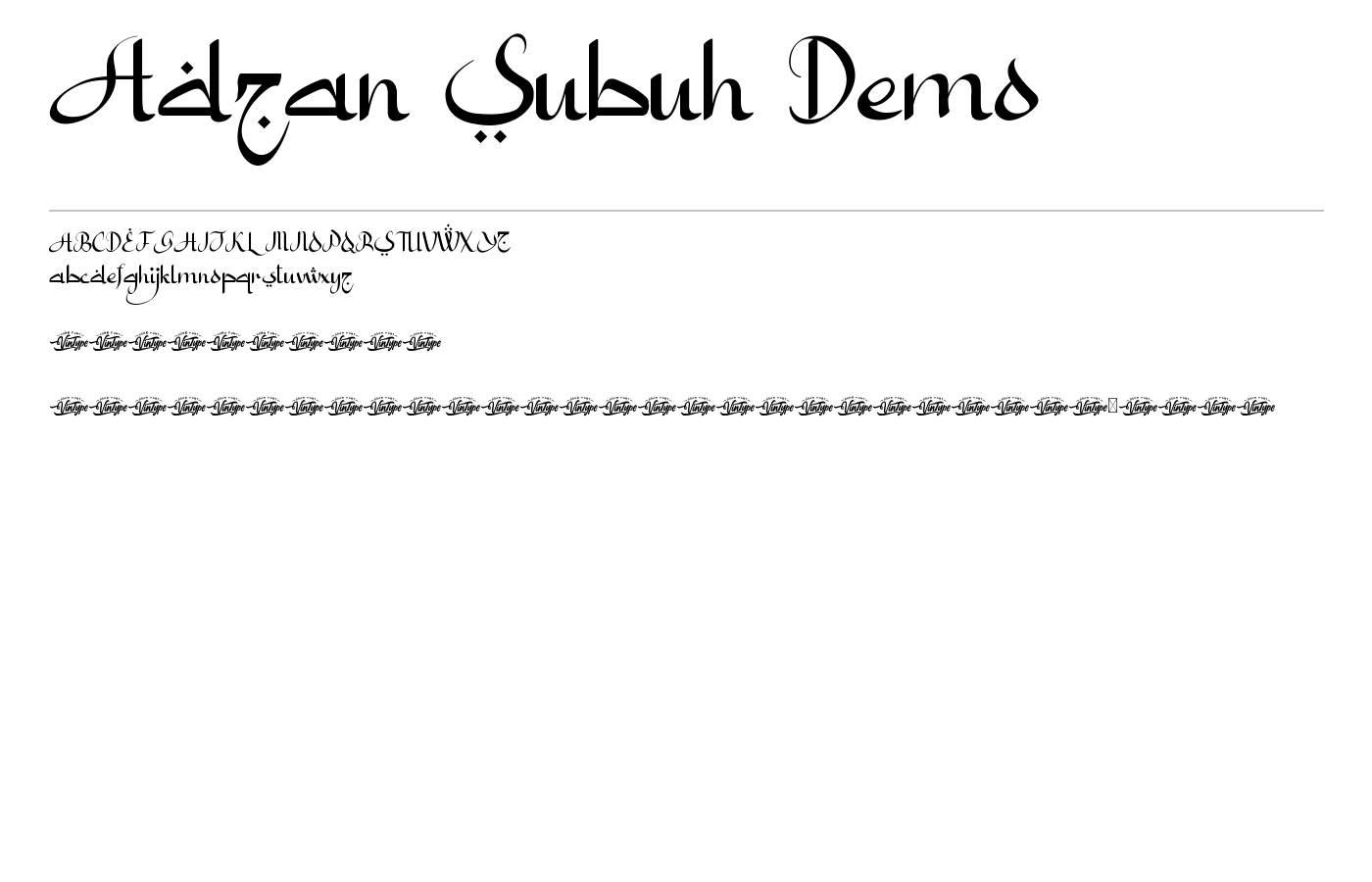
Adzan Subuh Demo is an elegant, calligraphic script font with a stylized, ornate design that blends smooth curves and sharp details, evoking a sense of traditional elegance with a modern twist. Its delicate strokes and decorative letterforms make it ideal for sophisticated branding, invitations, and creative headlines where an artistic and refined appearance is desired. This font works best in visual projects that seek a unique, cultural, and graceful aesthetic.
Adzan Subuh Demo Font
About Adzan Subuh Demo Font